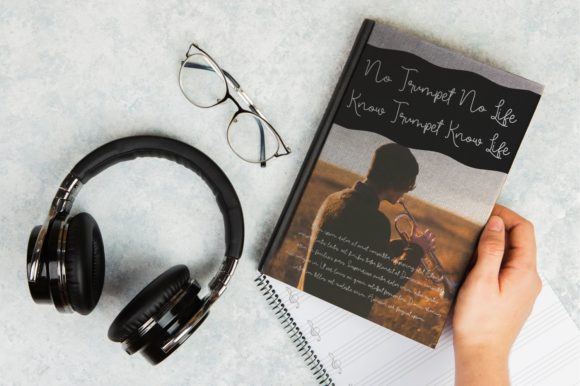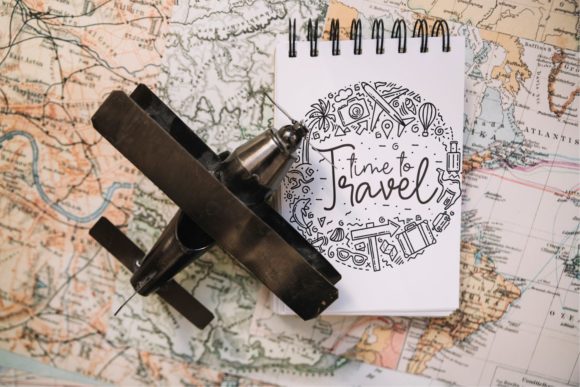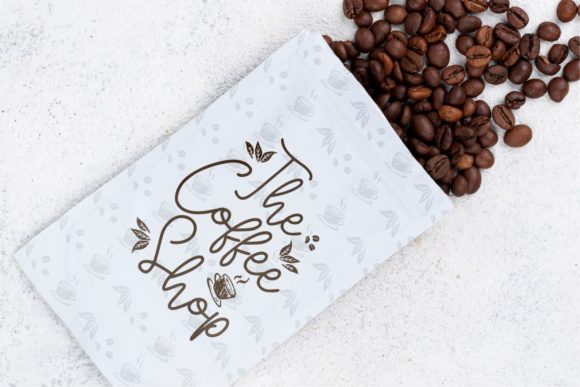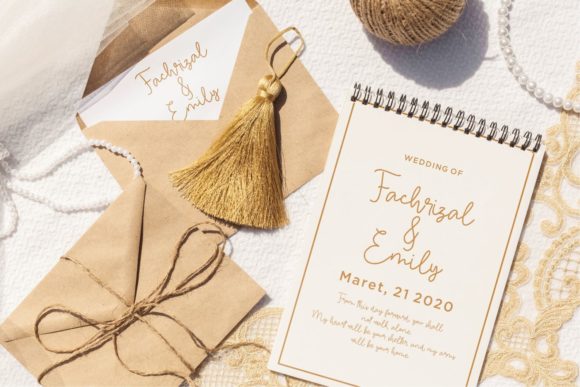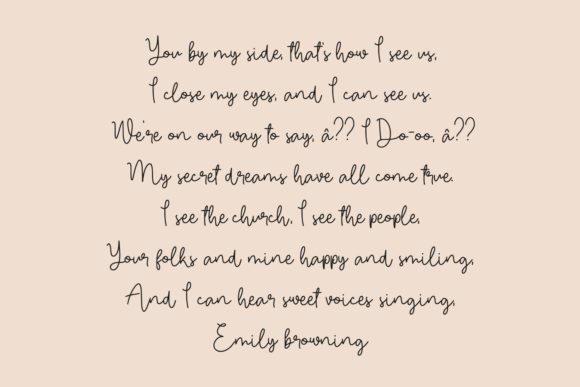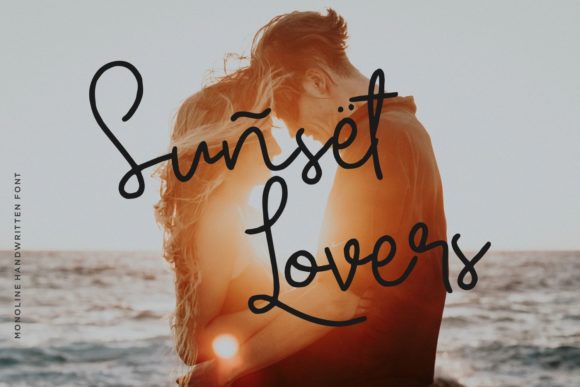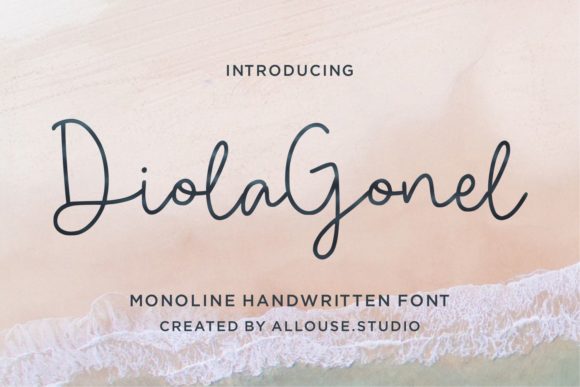
Introducing Diola Gonel Font: The Sweet and Delicate Handwritten Font for Your Design Projects
Are you looking for a font that can add a touch of sweetness and romance to your design projects? Look no further than the Diola Gonel Font! This beautiful, thin, and delicate handwritten font is perfect for a variety of design ideas, from wedding invitations and branding materials to social media graphics and more.
The Characteristics of Diola Gonel Font
Diola Gonel Font is a unique and elegant font that boasts a range of characteristics that make it perfect for designers and crafters. Some of its key features include:
- Sweet and delicate appearance: Diola Gonel Font has a gentle and soothing appearance that is sure to capture the hearts of your audience.
- Thin and elegant lines: The font features thin and elegant lines that give it a refined and sophisticated look.
- Handwritten style: The font has a beautiful handwritten style that adds a personal touch to your designs.
- Versatile: Diola Gonel Font can be used for a wide range of design projects, from digital to print.
How to Use Diola Gonel Font in Your Design Projects
Diola Gonel Font is a versatile font that can be used in a variety of design projects. Here are some ideas to get you started:
- Wedding invitations and stationery: The font’s elegant and romantic appearance makes it perfect for wedding invitations, save-the-date cards, and other wedding stationery.
- Branding and packaging: Diola Gonel Font can be used to create beautiful and elegant branding materials, such as logos, business cards, and product packaging.
- Social media graphics: The font’s sweet and delicate appearance makes it perfect for social media graphics, such as Instagram posts and Facebook covers.
- Blog and website design: Diola Gonel Font can be used to create beautiful and elegant blog and website designs that will capture the hearts of your audience.
Why Choose Diola Gonel Font?
There are many reasons why you should choose Diola Gonel Font for your design projects. Here are a few:
- Unique and elegant appearance: Diola Gonel Font has a unique and elegant appearance that will set your designs apart from the rest.
- Easy to read: The font is easy to read, even at small sizes, making it perfect for body text and captions.
- High-quality: Diola Gonel Font is a high-quality font that is designed to deliver exceptional results.
Tips for Using Diola Gonel Font Effectively
Here are some tips for using Diola Gonel Font effectively in your design projects:
- Use it with contrasting fonts: Pair Diola Gonel Font with contrasting fonts to create visual interest and hierarchy.
- Experiment with different sizes: Experiment with different sizes to find the perfect balance for your design.
- Use it for headlines and titles: Use Diola Gonel Font for headlines and titles to add a touch of elegance and sophistication.
- Add embellishments: Add embellishments, such as flowers or borders, to enhance the font’s elegant appearance.
In conclusion, Diola Gonel Font is a beautiful and elegant handwritten font that is perfect for designers and crafters. Its sweet and delicate appearance, thin and elegant lines, and versatile nature make it perfect for a wide range of design projects. Whether you’re creating wedding invitations, branding materials, or social media graphics, Diola Gonel Font is sure to add a touch of joy and romance to your designs.